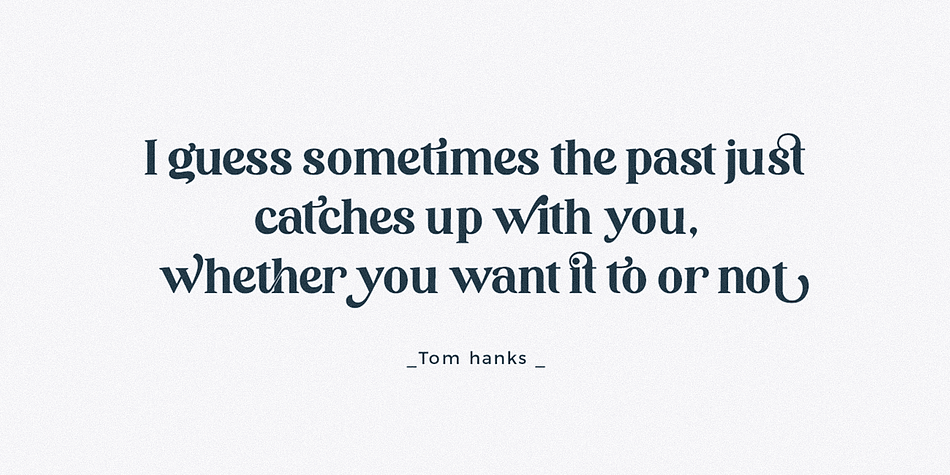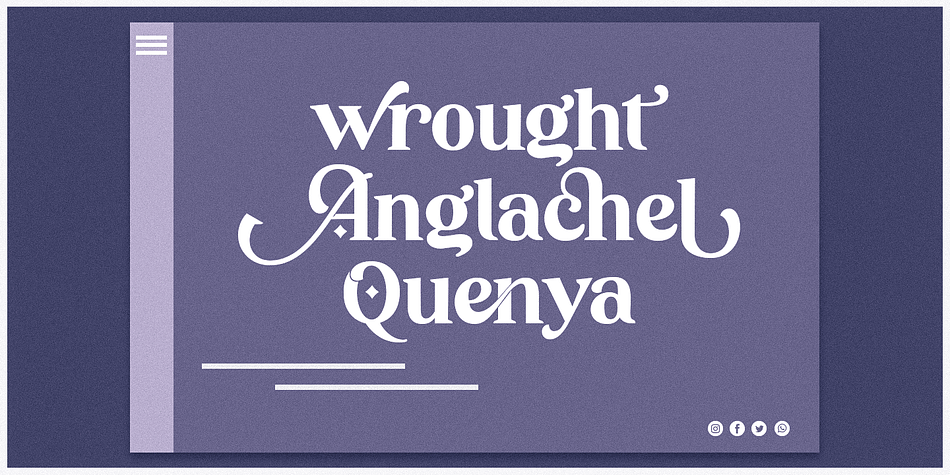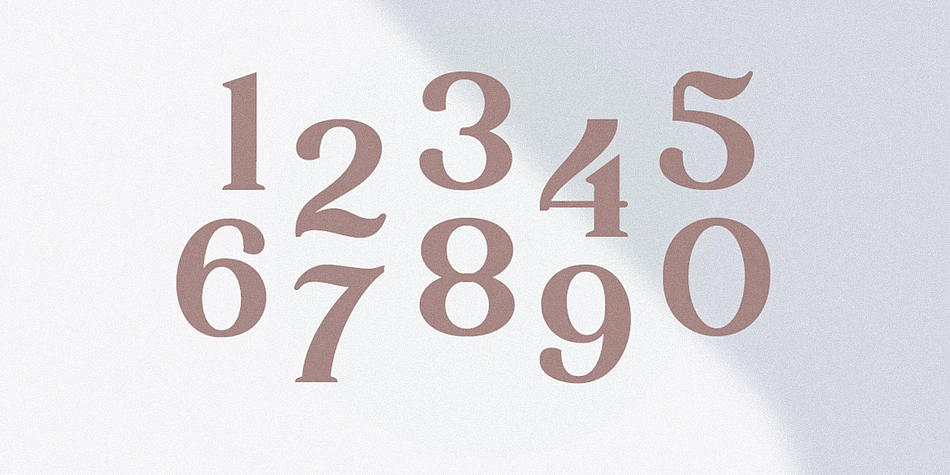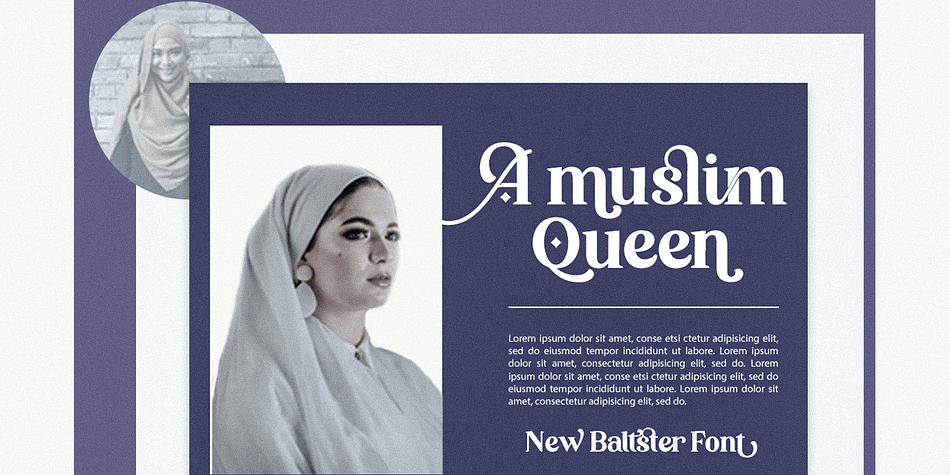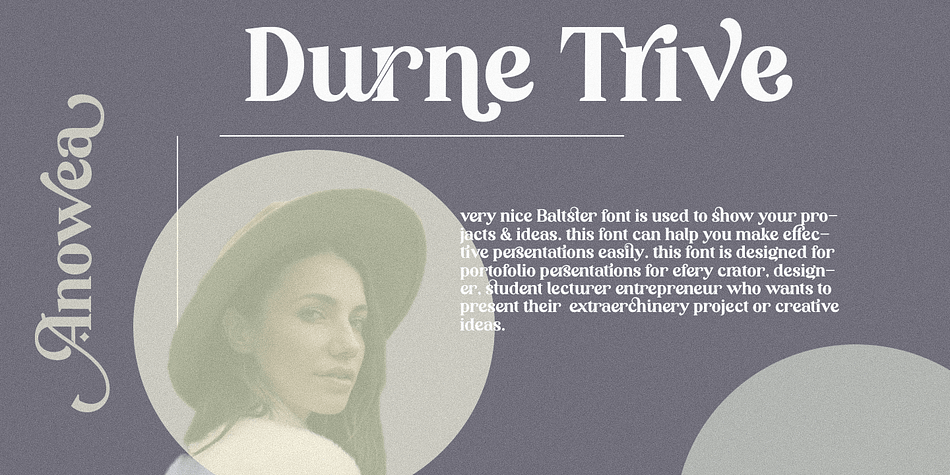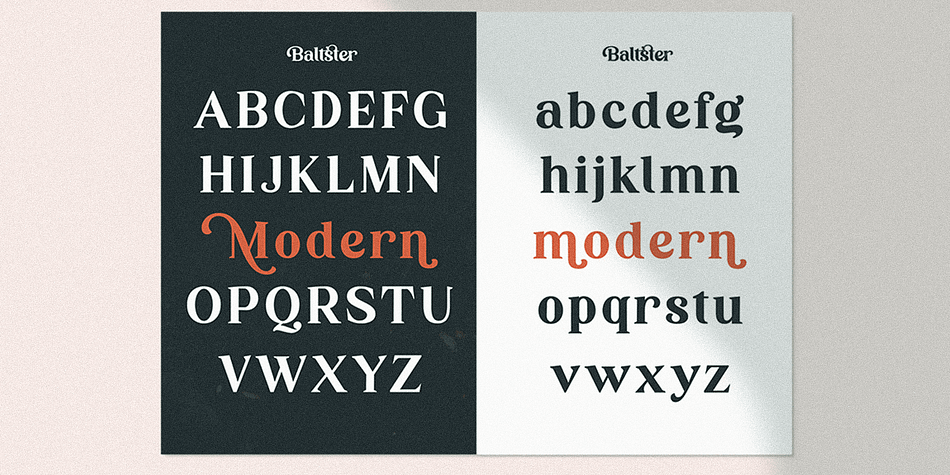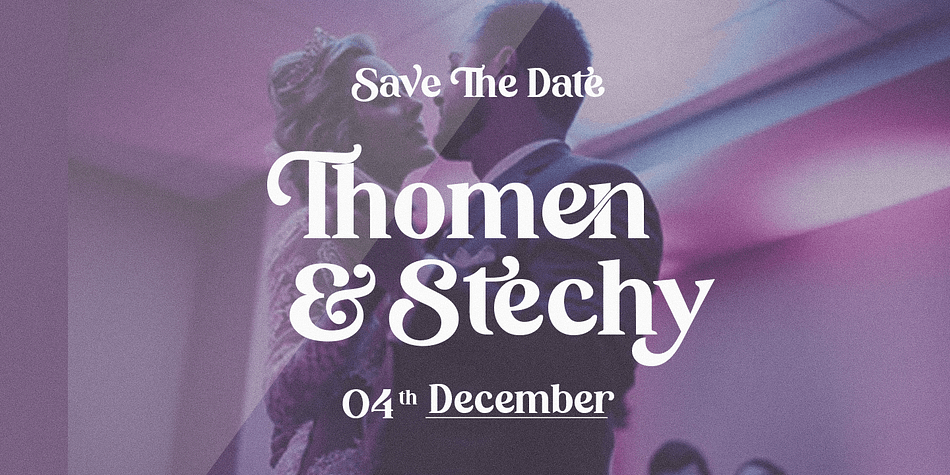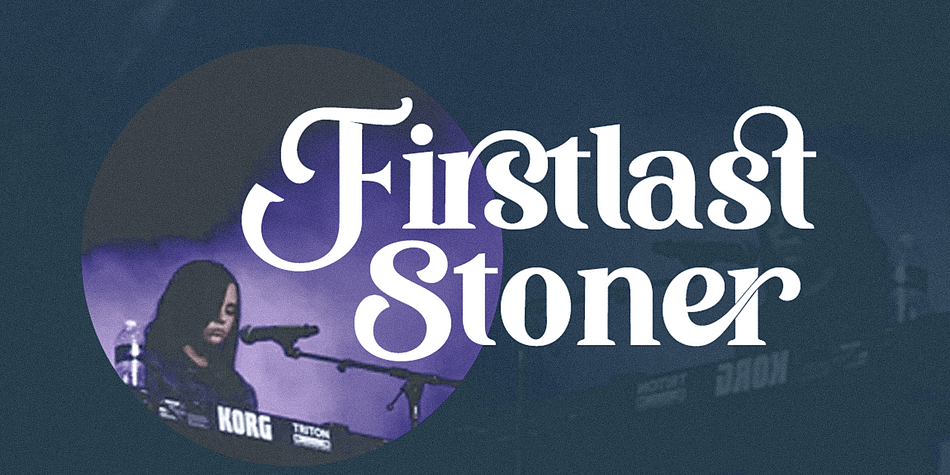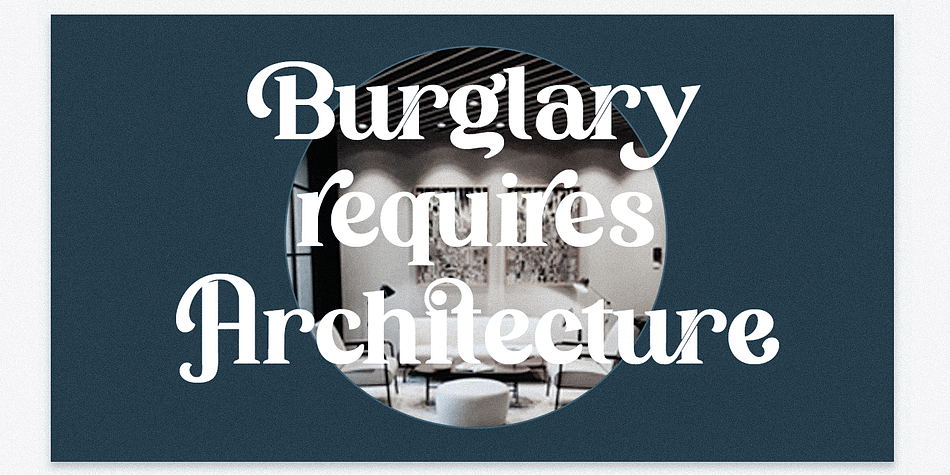
Designed by Indie Type, Baltster is a display serif and serif font published by Picatype Studio.
Baltster is a bold and beautiful natural feel and elegant design with a vintage flair. It uses 56 ligature to smoothly link letters. It allows Baltster to function as a magnificent display font. This unique font also includes
89 alternatives. Numbers, symbols and other punctuation are also included in this font. Supports multilingual and PUA-encoded! Let this font make your project more raw and natural!
This Baltster font is perfect for any modern project including branding designs, logos, invitations, wedding decorations, website designs, Instagram, business cards, and more!